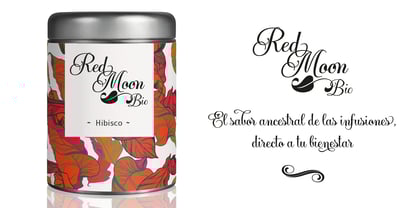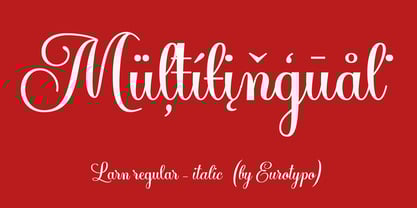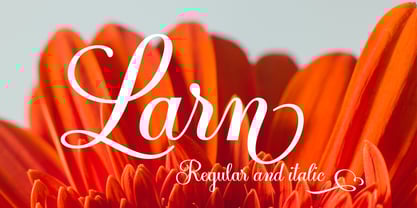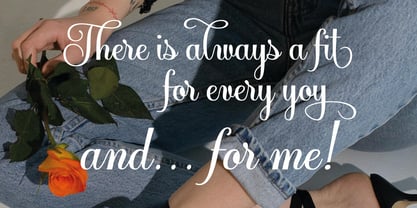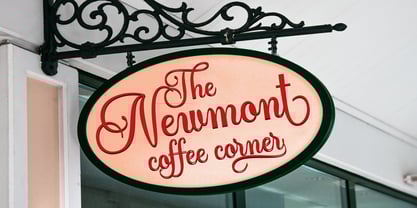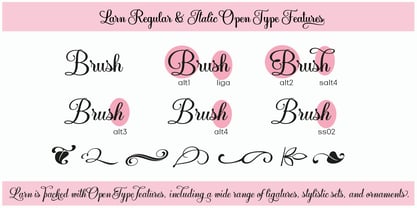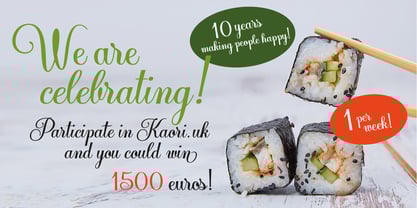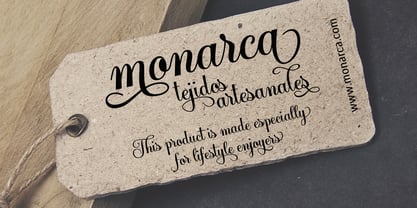
Larn
by Eurotypo
The Larn Font Family was designed by Carine de Wandeleer and published by Eurotypo. Larn contains 2 styles and family package options.
Larn is a fresh and charming calligraphic font family, with a casual, organic style and character,
Larn strikes the perfect balance between elegance and playfulness.
This font family includes both regular and italic styles, packed with extensive OpenType features and Central European language support. Every letter is crafted with multiple stylistic alternates, unique ligatures, and a full set of ornaments, giving you the tools to boost your creativity and produce stunning typographic work.
Perfect for wedding invitations, greeting cards, branding, logos, business cards, fashion projects, editorial layouts, packaging, menus, book covers, and anything else your imagination can dream up!